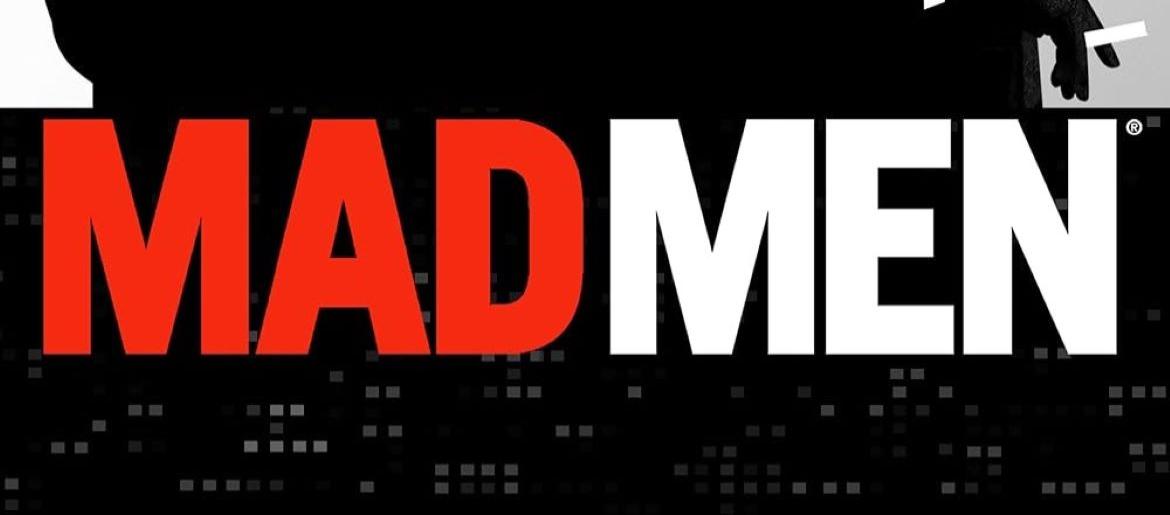
Mad Men Font
The Mad Men font channels the polished, mid-century aesthetic that made the series so iconic. Its crisp lines and refined shapes echo the world of high-stakes advertising, where style and precision were everything. This typeface is a great fit for retro-themed projects, elegant branding, or anything that needs a smooth, classic 1960s flair. Its understated sophistication adds credibility and charm, giving designs a confident, vintage edge.
The show’s title uses a typeface similar to Helvetica Neue Heavy, a commercial font available through authorized retailers.